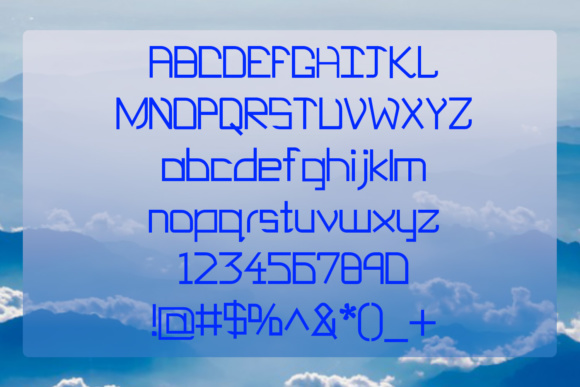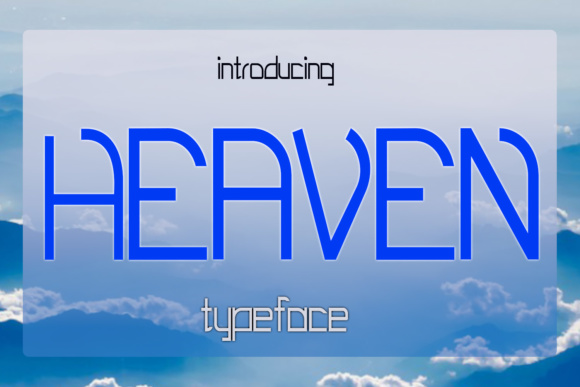
Discover the Elegance of EP Heaven Font: A Versatile Typeface for Designers and Crafters
In the world of design, typography plays a crucial role in conveying messages, evoking emotions, and creating visual identities. Among the numerous fonts available, EP Heaven Font stands out for its elegant and straightforward design, making it an excellent choice for various design projects. In this article, we’ll explore the characteristics, benefits, and uses of EP Heaven Font, and why it’s a must-have for designers and crafters.
What is EP Heaven Font?
EP Heaven Font is a beautifully crafted typeface characterized by its straight lines and elegant appearance. This font is designed to be versatile and can be used in a wide range of design applications, from digital projects to print materials. Its clean and simple design ensures that it remains legible and stylish, making it perfect for use in titles, headings, and body text.
Key Features of EP Heaven Font
- Elegant Design: EP Heaven Font boasts an elegant design with straight lines that give it a modern and sophisticated look.
- Versatility: This font is highly versatile and can be used in various design projects, including logos, brochures, posters, websites, and more.
- Legibility: The clean and simple design of EP Heaven Font ensures excellent legibility, making it suitable for both titles and body text.
- Easy to Read: The font’s clear and straightforward design makes it easy to read, even at smaller sizes.
Benefits of Using EP Heaven Font
There are several benefits to using EP Heaven Font in your design projects. Here are a few:
- Enhances Visual Appeal: The elegant design of EP Heaven Font can significantly enhance the visual appeal of your designs, making them more engaging and professional.
- Consistency: Using a consistent font throughout your design project helps create a cohesive look and feel, which is essential for building a strong brand identity.
- Time-Saving: With its versatility and legibility, EP Heaven Font can save you time in selecting and pairing fonts for your projects.
- Cross-Platform Compatibility: EP Heaven Font is compatible with various platforms and devices, ensuring that your designs look great everywhere.
Uses of EP Heaven Font
EP Heaven Font’s versatility makes it suitable for a wide range of design applications. Here are some popular uses:
- Branding and Logo Design: The elegant design of EP Heaven Font makes it an excellent choice for logos and brand identities.
- Print Materials: Use EP Heaven Font in brochures, posters, flyers, and business cards to create visually appealing print materials.
- Digital Projects: EP Heaven Font is perfect for websites, social media graphics, and digital advertisements.
- Crafting and DIY Projects: Crafters and DIY enthusiasts can use EP Heaven Font in their projects, such as handmade cards, scrapbooking, and more.
Tips for Using EP Heaven Font Effectively
To get the most out of EP Heaven Font, here are some tips:
- Pair with Complementary Fonts: Pair EP Heaven Font with complementary fonts to create visual interest and hierarchy in your designs.
- Experiment with Sizes and Colors: Experiment with different sizes and colors to create contrast and emphasize important elements in your designs.
- Use for Headings and Titles: Use EP Heaven Font for headings and titles to create a strong visual impact.
| Font Name | EP Heaven Font |
| Author | Emily Penley Fonts |
EP Heaven Font is an elegant and versatile typeface that can elevate your design projects to the next level. Its straight lines and clean design make it perfect for a wide range of applications, from branding and print materials to digital projects and crafting. With its numerous benefits and uses, EP Heaven Font is a must-have for designers and crafters looking to create visually appealing and professional designs.